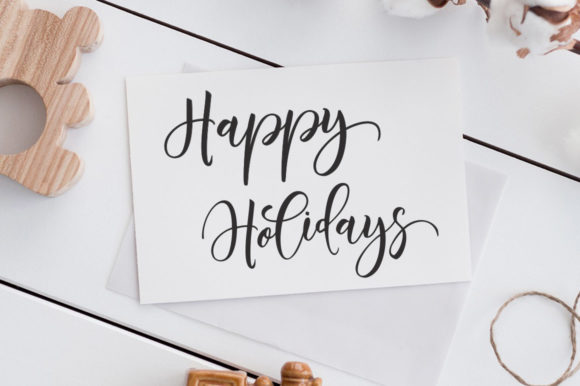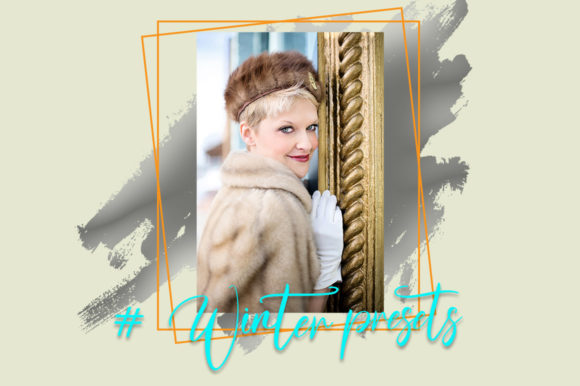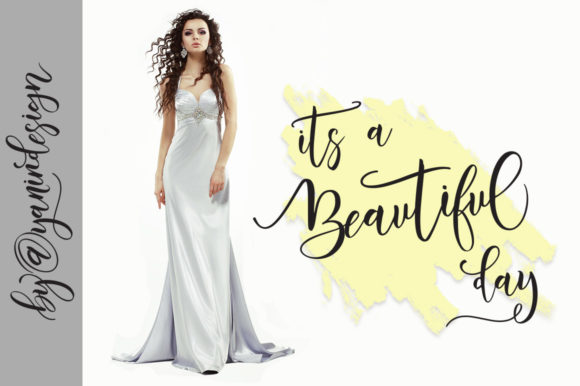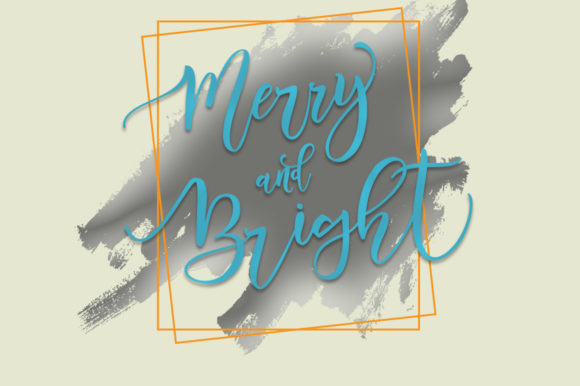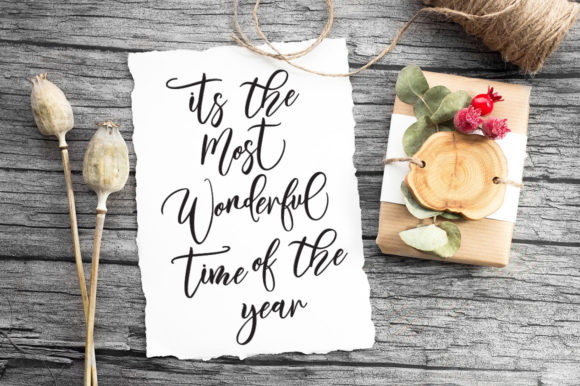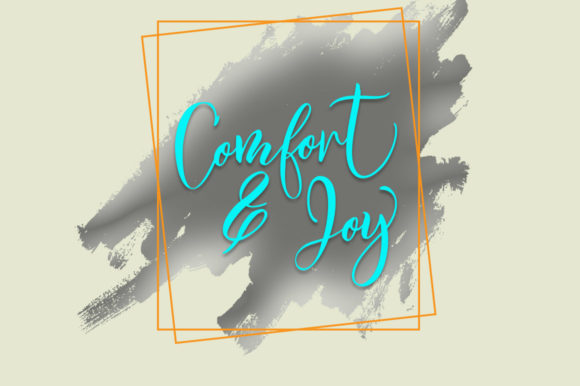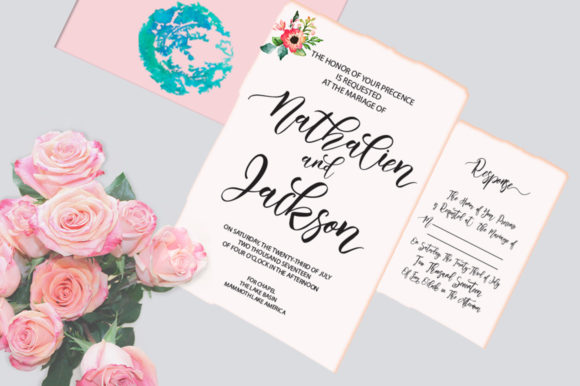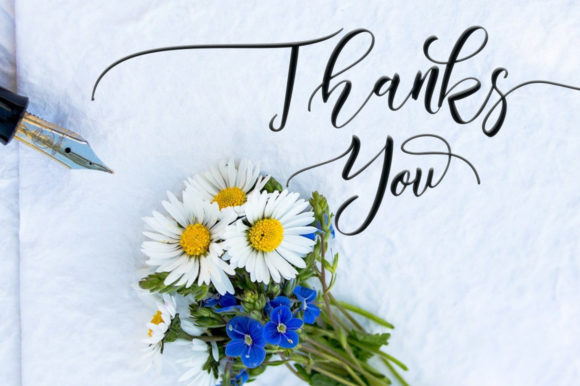
Moisture Ink Font
About Moisture Ink Font
Moisture Ink features beautifully handcrafted letters! This font has a unique uppercase and lowercase letters with a distinct flowing feel. Fall in love with its ligatures and alternates, and get creative with this gorgeous script!